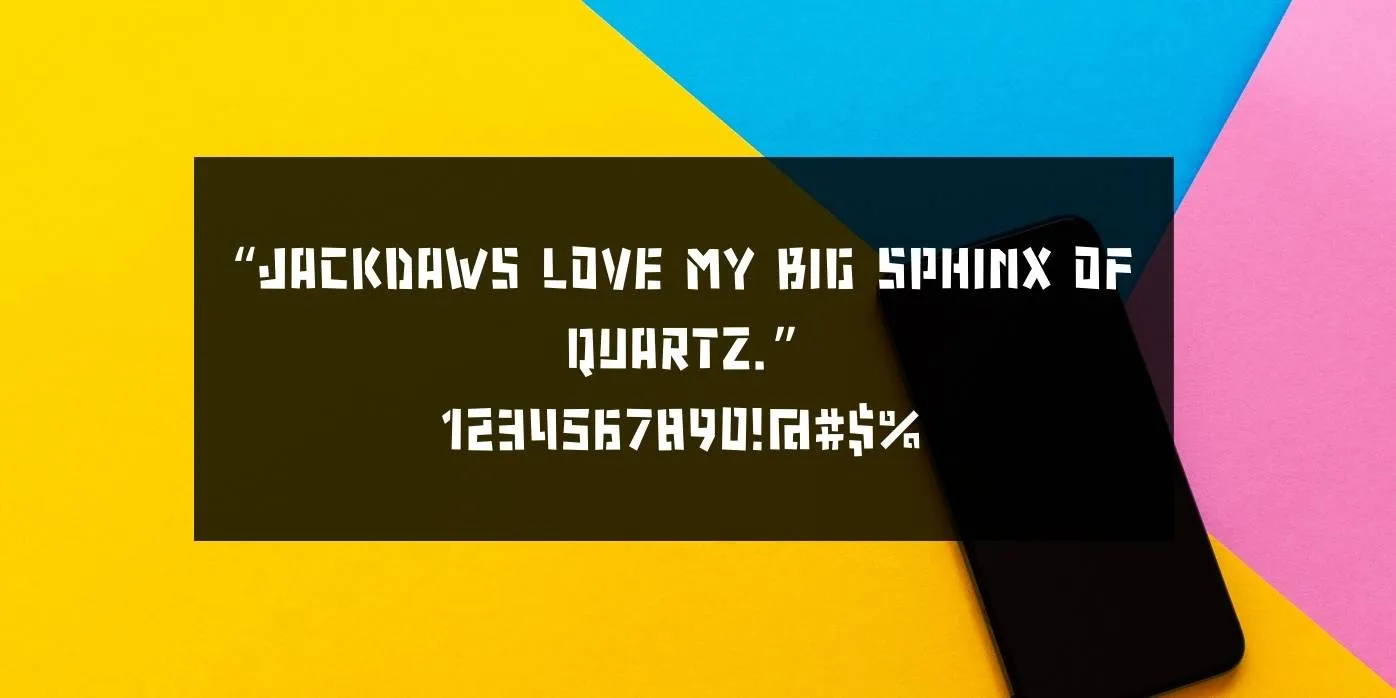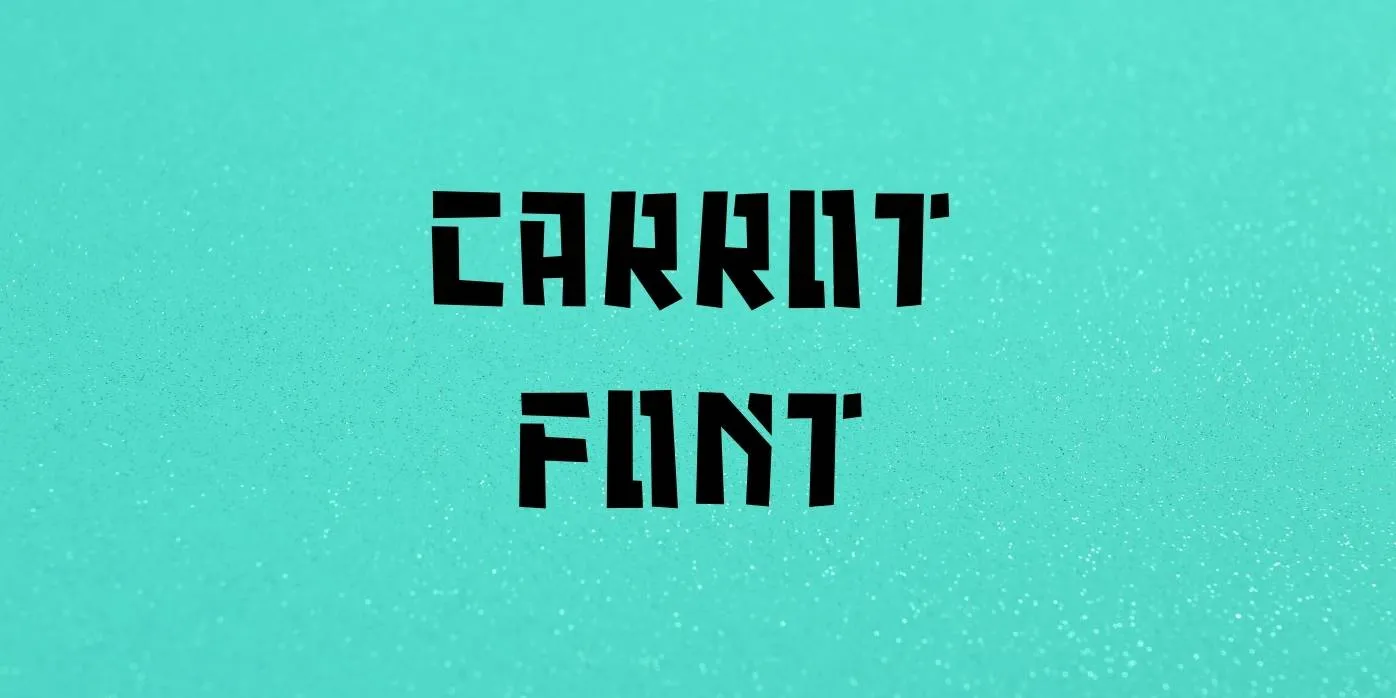
Carrot Font
Today, we present Carrot Font which belongs to the display family. This typeface was created by Adrien Broth, a French designer. The Carrot Font features unique letters with a carrot shape. This typeface is well suitable for CSS and HTML.
This display font is perfect for both headlines and body text. It’s ideal for websites, posters, and print design. The Carrot Font is available in two weights: regular and bold. Its unique Glyphs make it perfect for merchandise, food packaging, and branding.
This font has multilingual support and comes with an extensive character set. Its copy and paste function is most classic. Another similar font which is graphique font is perfect for different designs. This family has different characters than the average typeface.
The shapes of the letters are inspired by carrots. The result is a playful and unique font that’s great for headlines, branding, and print design. The generator tool of this family this font is perfect for many designs.